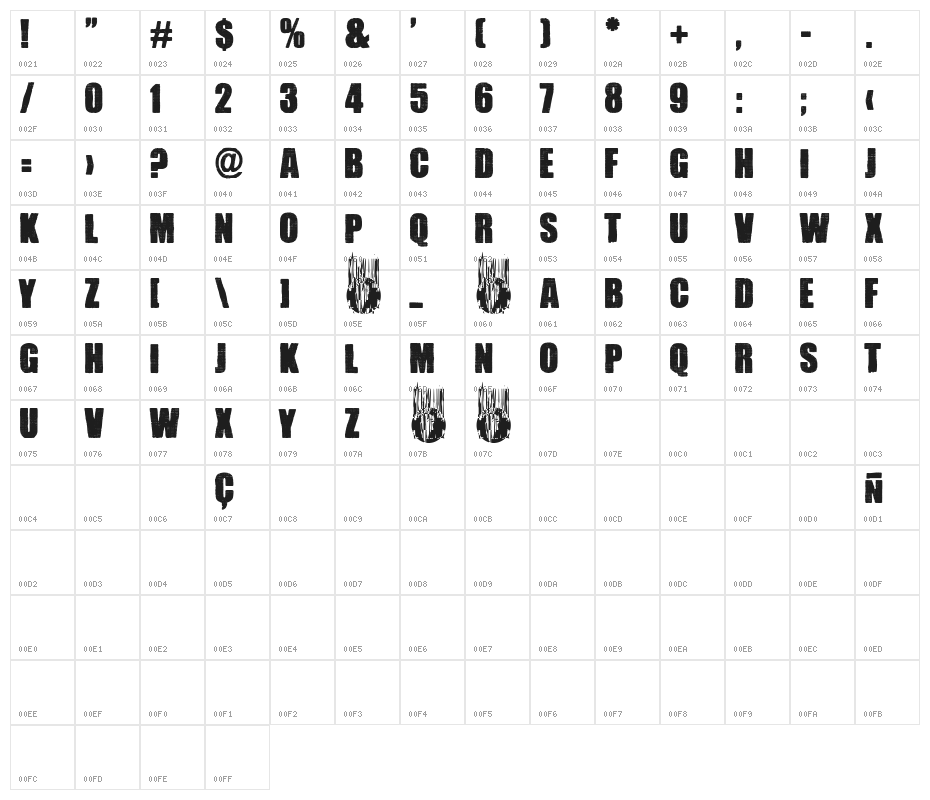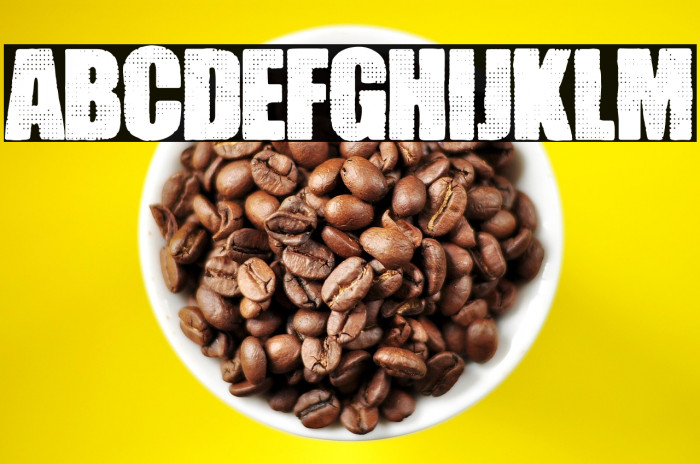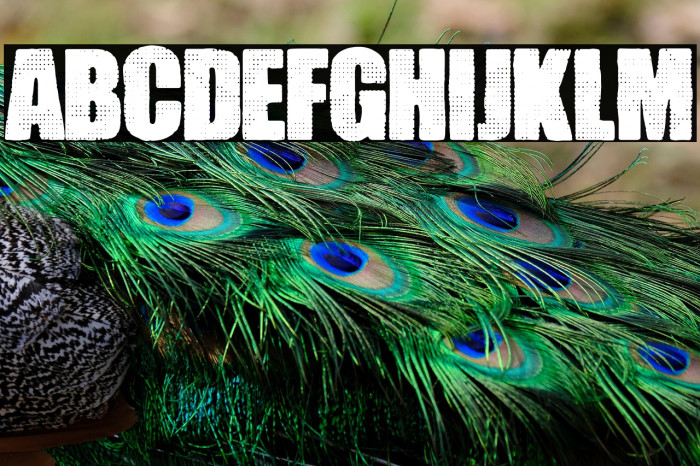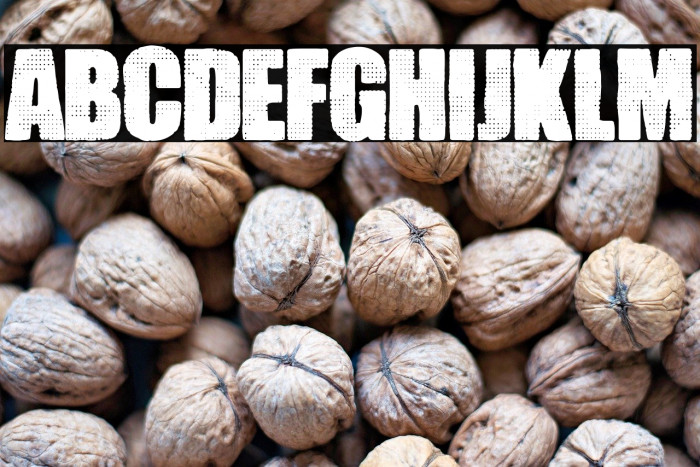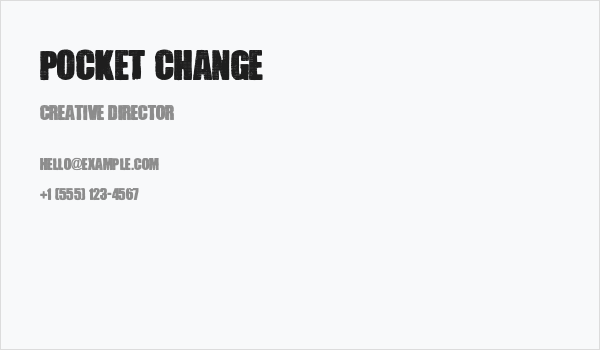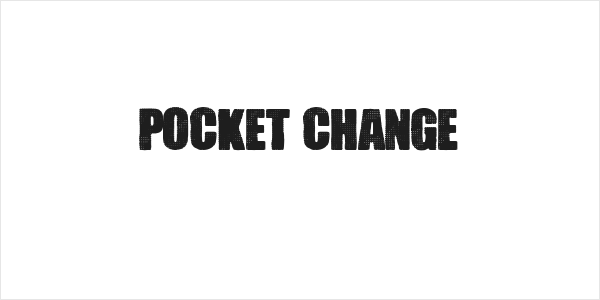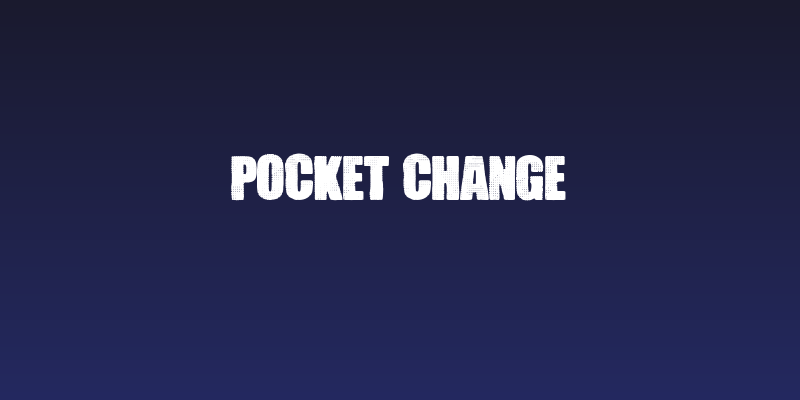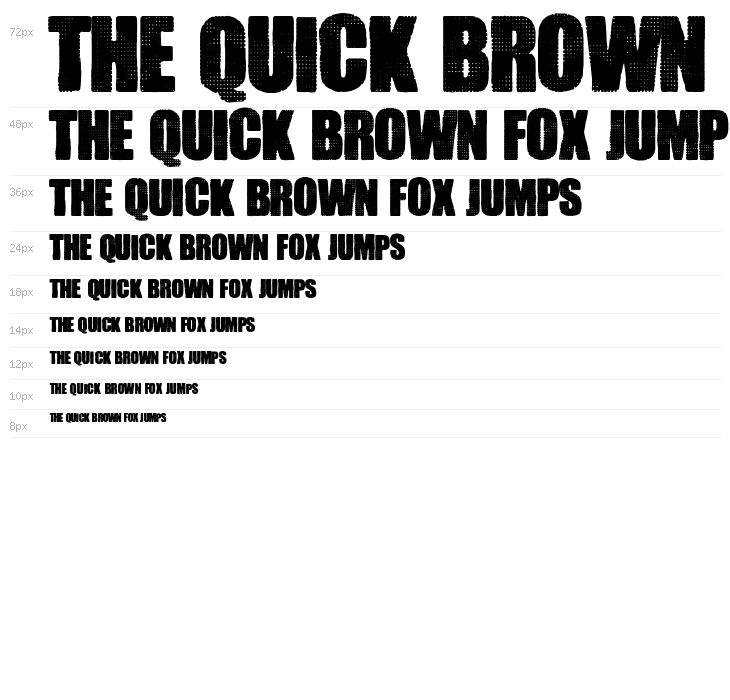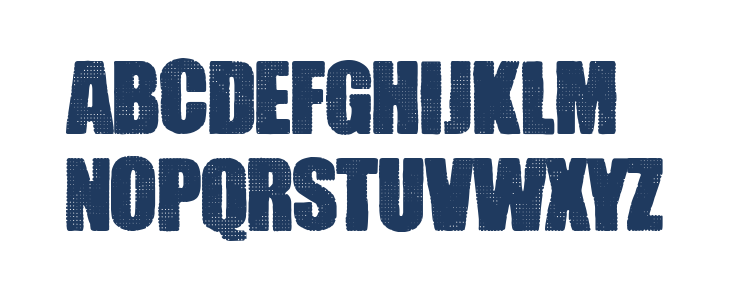
Pocket Change Font
Pocket Change Description
This font features a bold, textured style with a distressed, grunge-like appearance. The characters are robust and heavily weighted, giving them a strong presence. The texture within each letter adds a unique, vintage feel, reminiscent of old printing techniques or worn-out signage. The uppercase and lowercase letters maintain consistent proportions, while the numbers and special characters follow the same stylistic approach. This font is ideal for projects that require a bold statement or a retro aesthetic, as it captures attention with its distinctive, rugged charm.
| Proposed Projects | Ideal for posters, album covers, branding, and any design needing a bold, vintage touch. |